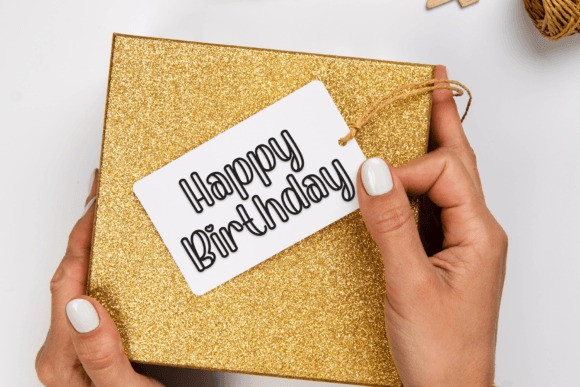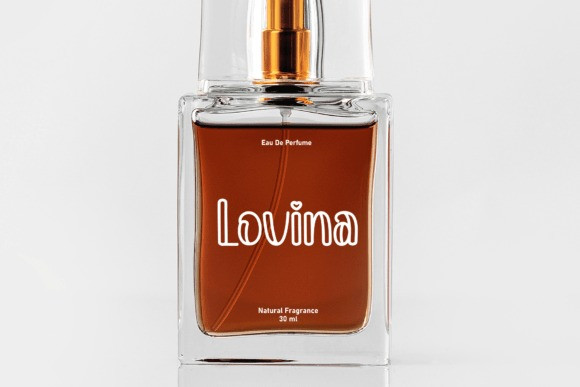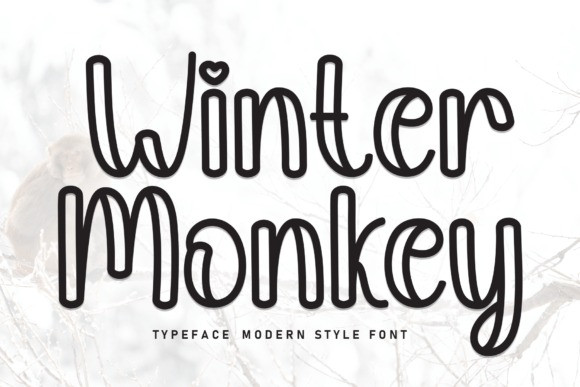
Winter Monkey Font
Winter Monkey Font is a sweet and friendly handwritten display font. Cute and fun, this font is ideal for writing wedding invitations, cards, or any other design that might need a fun touch!